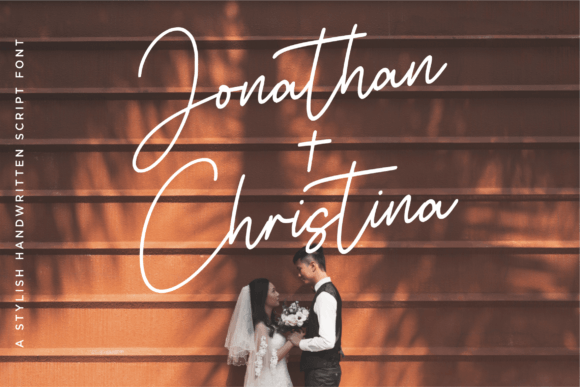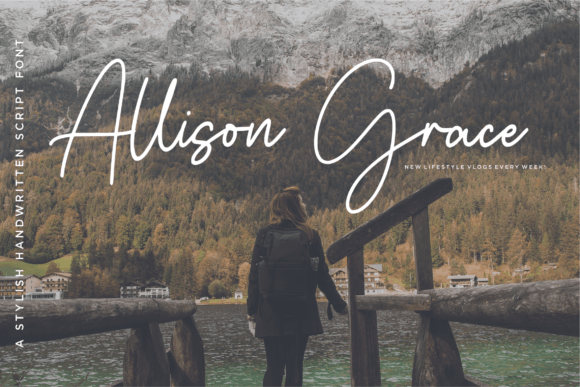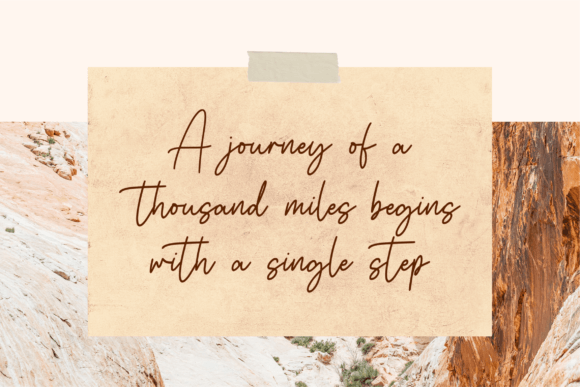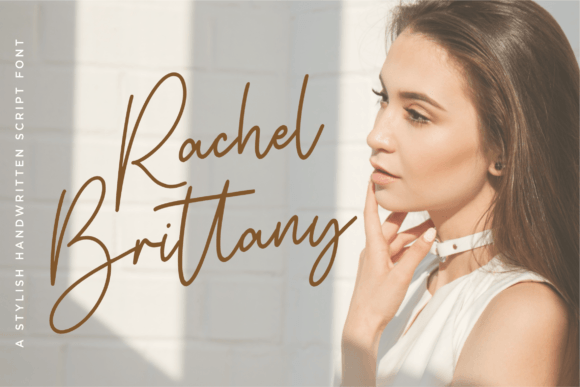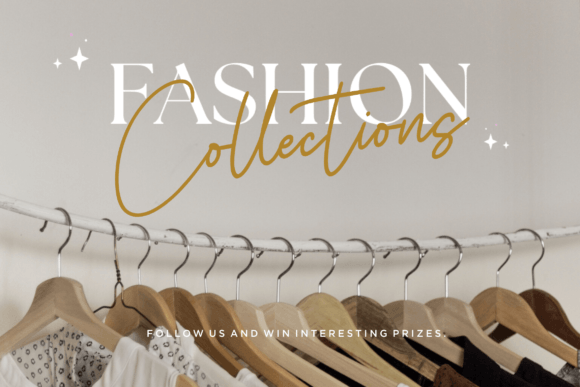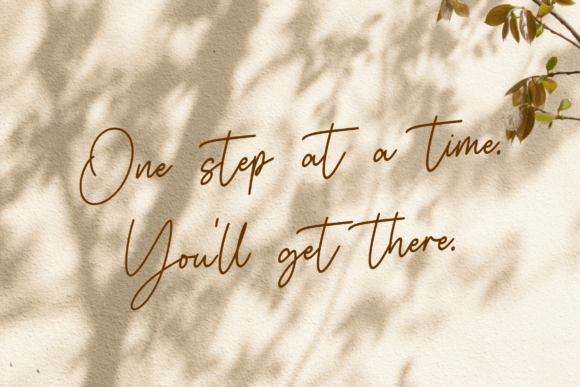
Signatture Greating Font – Free Download
Introduction to Signatture Greating Font
Signatture Greating is a sweet and cursive handwritten signature script font.
This gentle font will look gorgeous on a variety of design ideas It will add a joyful and romantic touch to each of your projects.